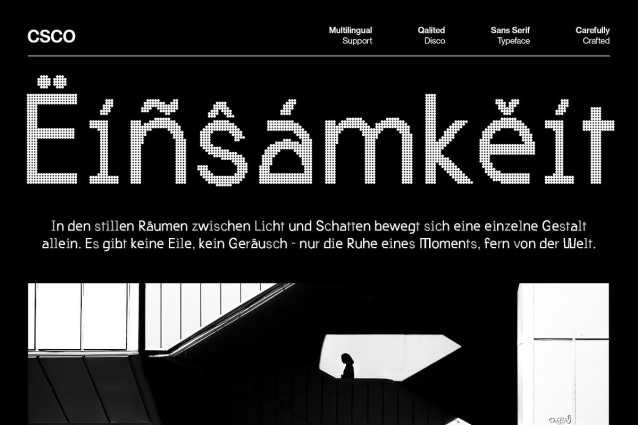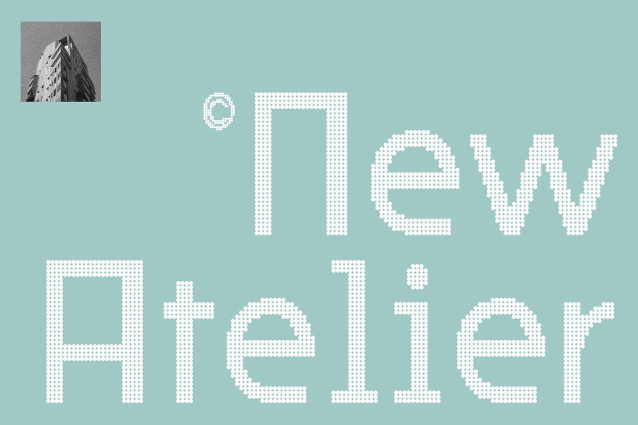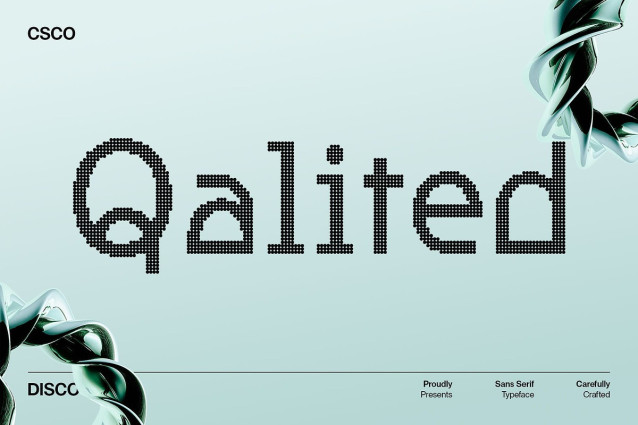
Qalited Disco Font
Qalited Disco Font: Industrial Strength with a Sparkling Edge Industrial Sans Serif with Disco Energy This is a bold industrial sans serif font built on precision and strength. Its clean, structured letterforms capture the technical confidence of industrial design, while shimmering disco accents add a vibrant and stylish twist. This rare combination makes it both professional and expressive, perfect for modern creative work. Strength and Technical Precision Every character in is crafted with bold lines and solid structure, reflecting durability and clarity. This industrial foundation ensures excellent readability while delivering a strong presence in any layout. It’s a font that feels confident, assertive, and unshakable. Disco Shimmer for Distinctive Style What sets apart is its shimmering disco detail. This sparkling effect introduces movement and glamour, transforming its sturdy design into something playful and eye-catching. The result is a font that bridges technical precision with lively expression. Perfect for Branding, Posters, and Headlines From futuristic branding to dazzling posters or bold headlines, adapts seamlessly. It’s an ideal choice for projects that need both impact and personality, whether in digital spaces, print layouts, or creative campaigns. With its industrial roots and disco shimmer, guarantees designs that command attention. Download Type Speciment: — What you get : – Qalited Disco Regular – Qalited Disco Italic Features : – Uppercase and lowercase characters – Numerals and Punctuation (OpenType Standard) – Accents (Supports Multilingual Characters) – PUA Encoding — You can use this typeface without needing any specialized software.